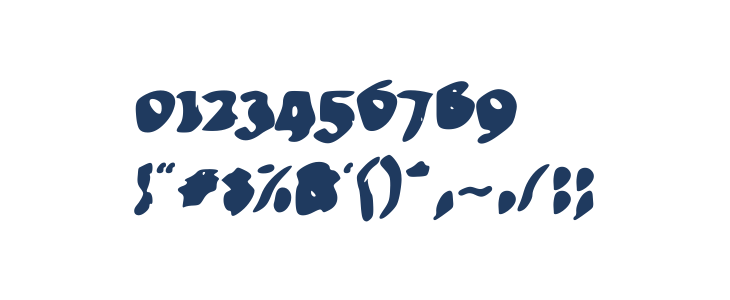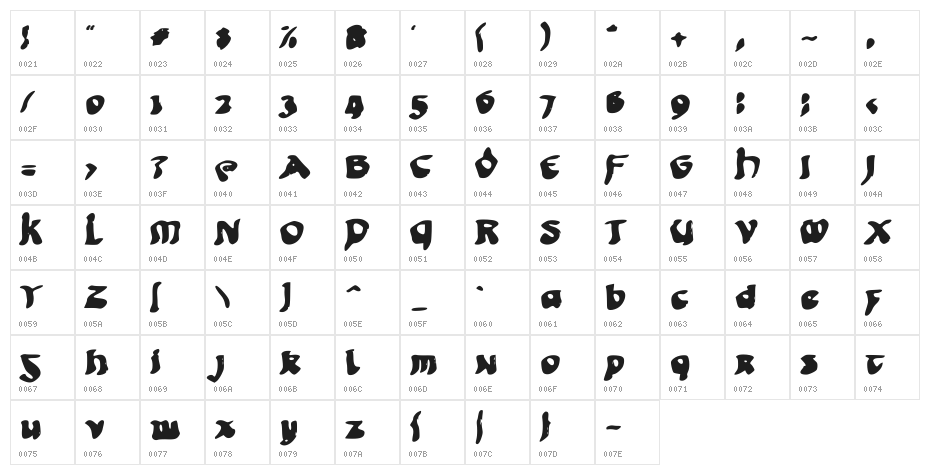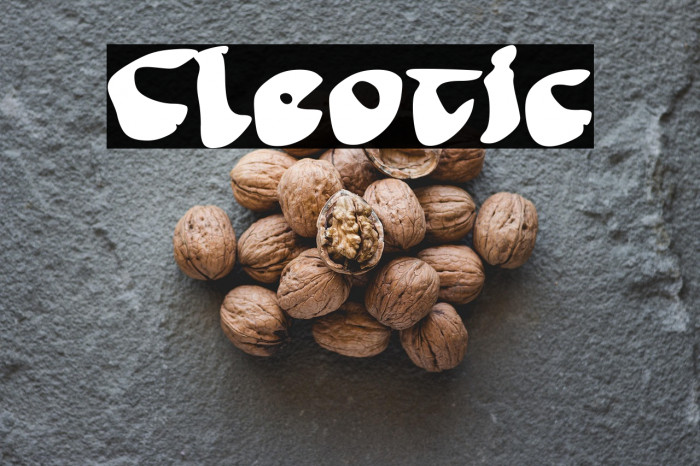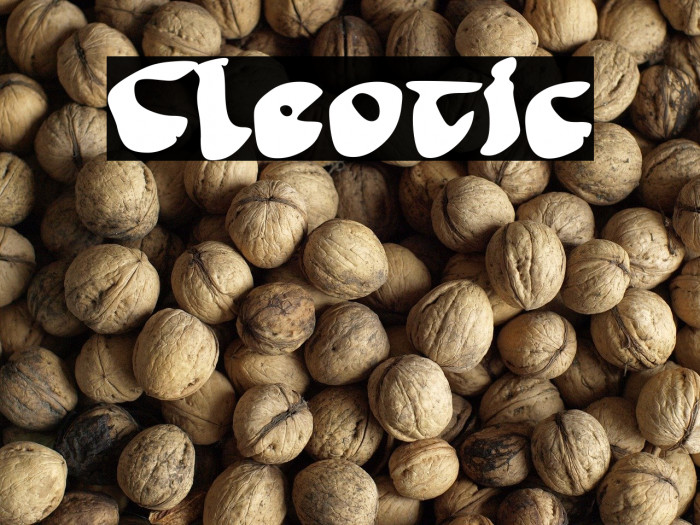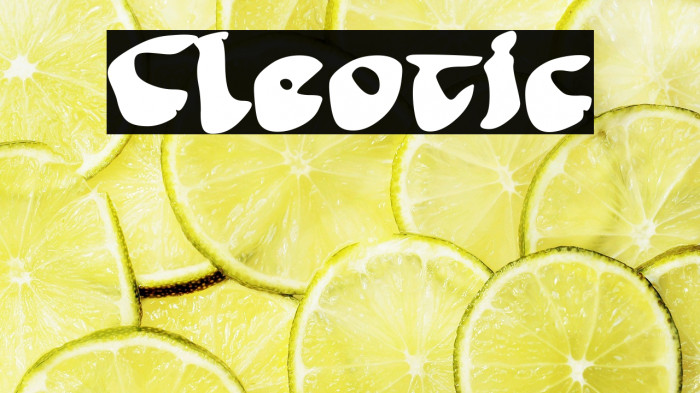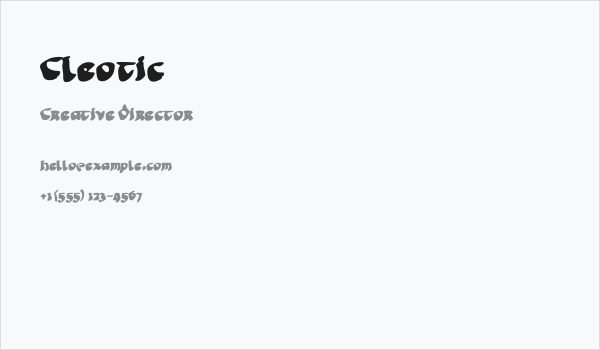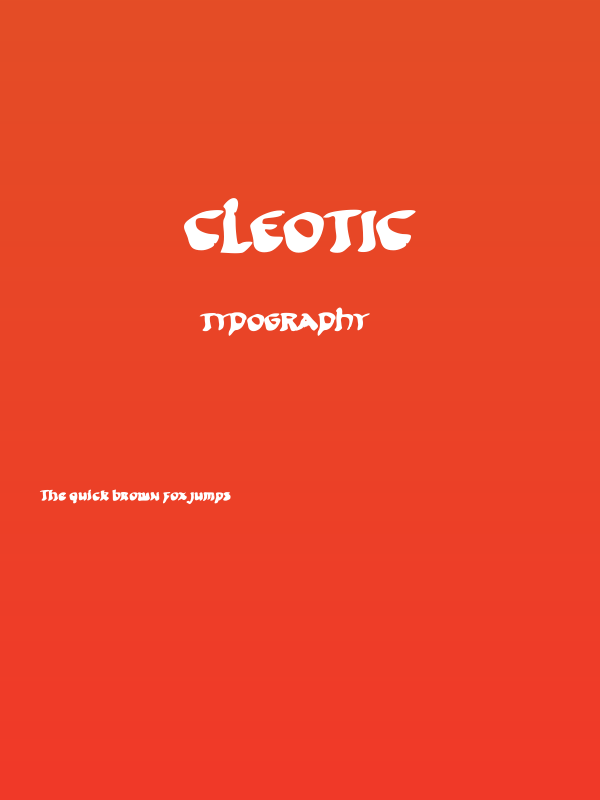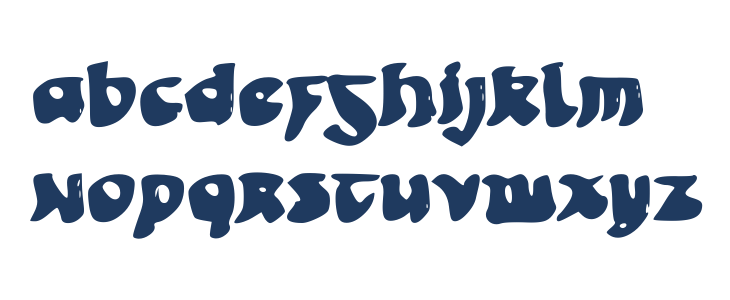
Cleotic Font
Cleotic Description
This font features a bold, artistic style with a playful and slightly chaotic appearance. The characters are heavily stylized with thick strokes and irregular shapes, giving them a unique, hand-drawn look. The uppercase and lowercase letters maintain a consistent aesthetic, with exaggerated curves and angles that create a sense of movement and energy. The numbers and special characters follow the same design principles, ensuring a cohesive appearance across all glyphs. This font's distinctiveness makes it ideal for creative projects that require a strong visual impact.